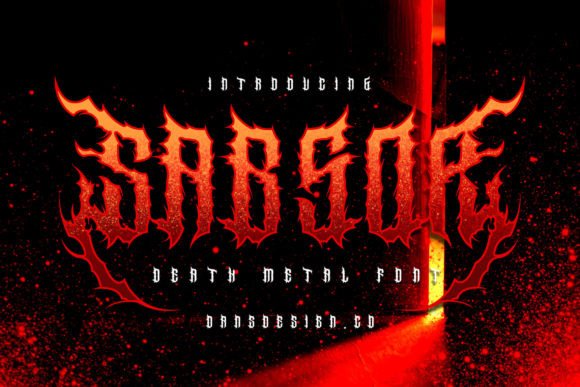
Introducing Sabsor Font, the ultimate choice for those seeking to make a bold statement with their designs. Crafted by the talented Dansdesign, this blackletter font is perfect for anyone looking to add a touch of Gothic Metal horror to their creations.
With its strong and impressive aesthetic, Sabsor Font is sure to capture attention and leave a lasting impact. Whether you're designing t-shirts, album covers, magazines, or any other project that needs to stand out, this font will elevate your work to new heights.
Imagine the power and intensity that this font will bring to your designs. Its dark and mysterious aura will evoke emotions and create an atmosphere that is impossible to ignore. The unique combination of horror and modern elements makes Sabsor Font a must-have for those seeking to make a statement.
Not only does Sabsor Font offer a visually captivating experience, but it also provides incredible versatility. Its adaptability allows it to seamlessly blend with various design styles, making it suitable for a wide range of projects. Whether you're going for a vintage, edgy, or contemporary look, this font has got you covered.
Stand out from the crowd and leave a lasting impression with Sabsor Font. Its intricate details and captivating design will draw the eyes of your audience, leaving them mesmerized by the sheer beauty of your creations. Let your imagination run wild and watch as this font transforms your ideas into artistic masterpieces.